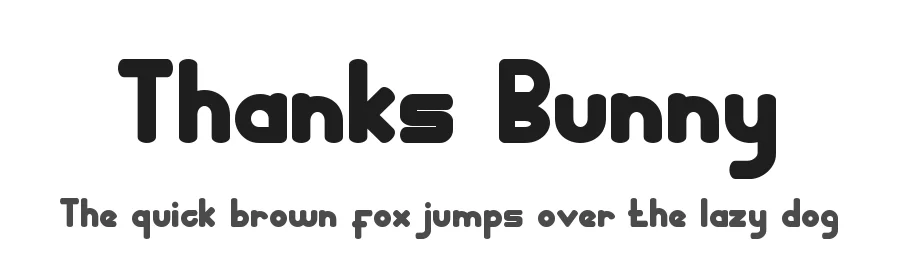
About Uniflex Font
Uniflex Specifications
| Designer | Gregory Medina Β©dcodesign |
Uniflex Font is a decorative font that shines as a display or heading face. Pair it with a clean sans-serif or serif font for body text β the contrast creates a clear hierarchy while the two styles stay balanced and easy to read.
Uniflex Font